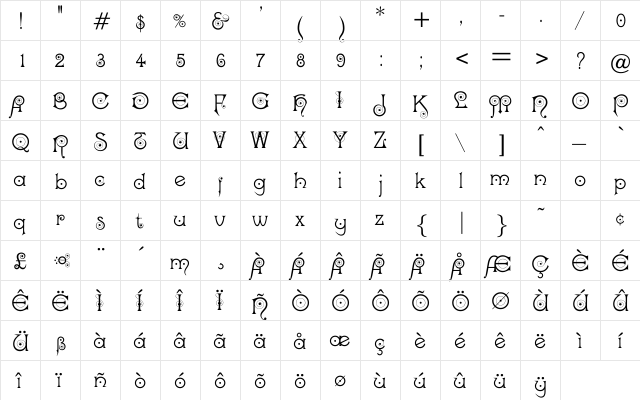
Kisstelle Regular Font Preview
Kisstelle Regular
Design Context for Kisstelle Typeface
Kisstelle is a composed and adaptable typeface that performs quietly and consistently across a wide range of design contexts.